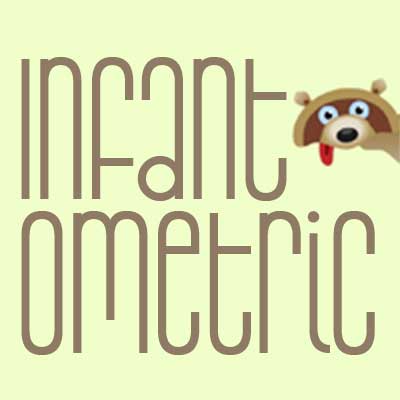
Infantometric Pro
Infantometric Pro by Roger S. Nelsson
The unicase height, condensed forms and playful mix of geometric construction and childish letterforms gives these fonts a naïve and charming expression. Part infantile, part geometric - it’s Infantometric!
Infantometric Pro is a professionally reworked font that contains an extended character set for setting text in 65 languages requiring more than the basic A-Z!
Infantometric Pro Light
Infantometric Pro Light by Roger S. Nelsson
Infantometric Pro Regular
Infantometric Pro Regular by Roger S. Nelsson
Infantometric Pro Bold
Infantometric Pro Bold by Roger S. Nelsson